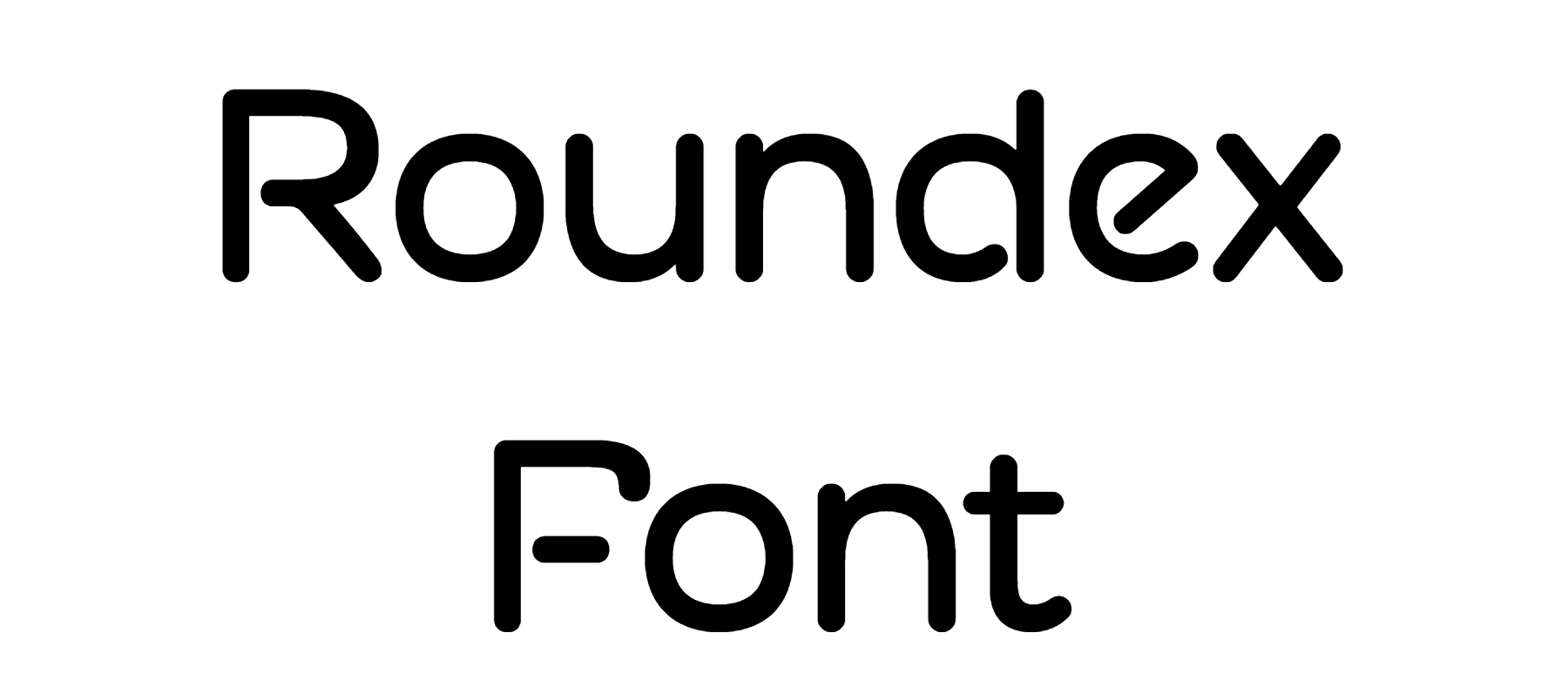
Roundex
Roundex is a sans serif font made by Eko Bimantara, Bion Ibrahim (2025). Its clean letters skip the little "feet" (serifs) of traditional type, so it looks modern and reads well on screens. It's a free download, and you can try it with your own text in the preview above first.
- Designer: Eko Bimantara, Bion Ibrahim
What You Can Type With Roundex
Roundex covers the full alphabet in upper and lowercase, plus all ten numbers, so you can set names, dates and prices without switching fonts. Common punctuation such as &, !, ? and @ is included as well. It also has the accented letters you need for Spanish, French, German, Portuguese and Italian.
Where Roundex Works Best
Think of Roundex for websites, app screens and clean logos. Its lowercase letters are tall compared to the capitals, which keeps it readable at smaller sizes. It works for headings and body text alike. If the download has several weights, use a heavier one for titles and a lighter one for paragraphs.
Does Roundex support accented letters?
Yes. Roundex includes the accented letters needed for Spanish, French, German, Portuguese and Italian, so it works for more than just English.